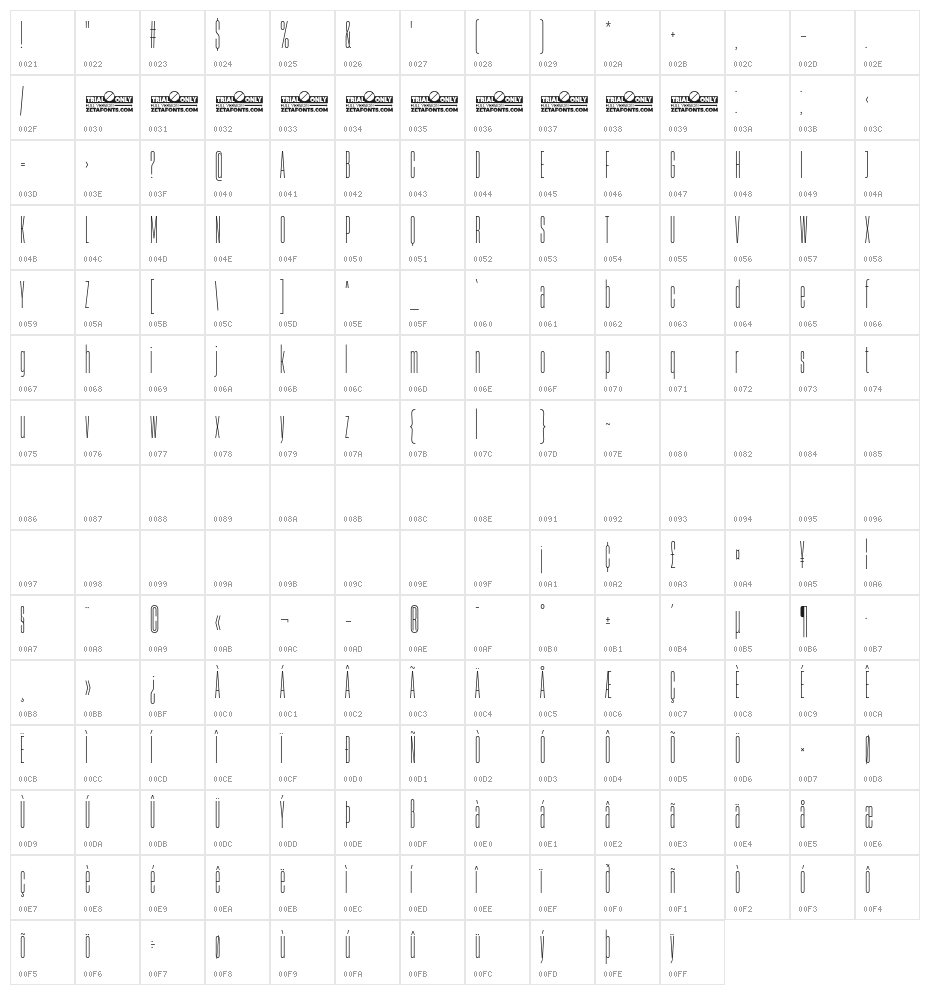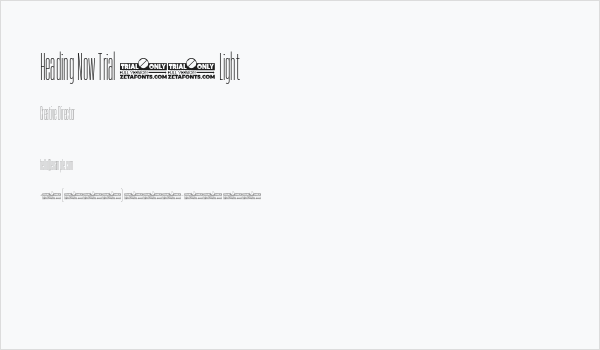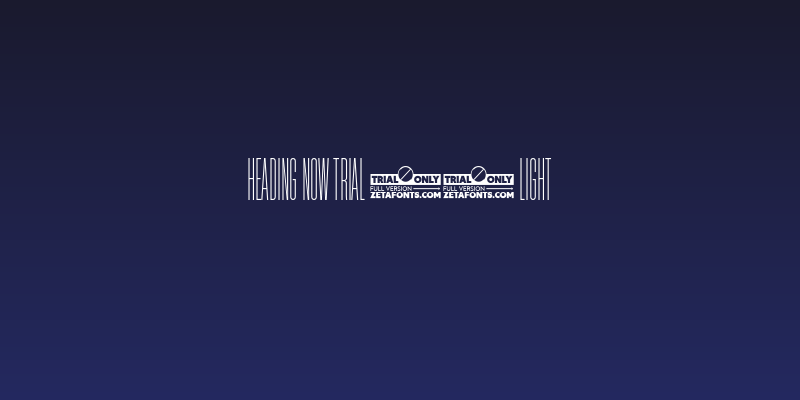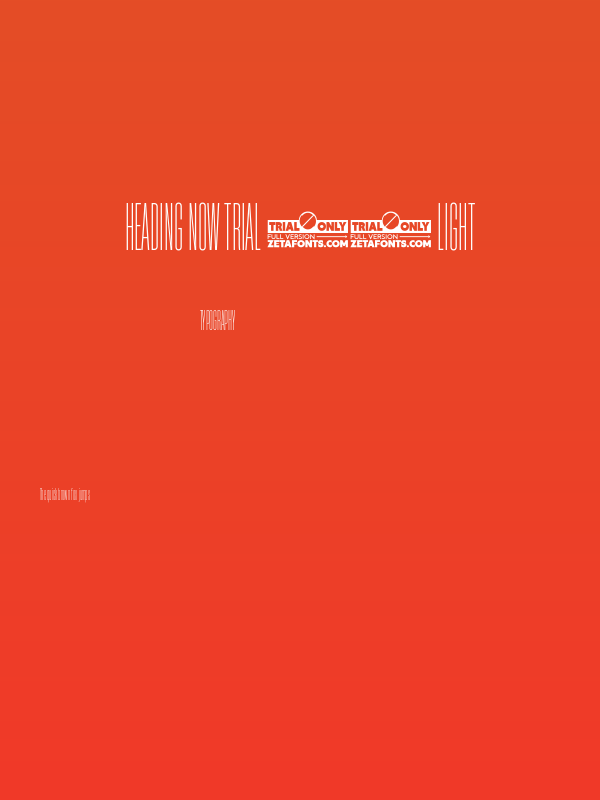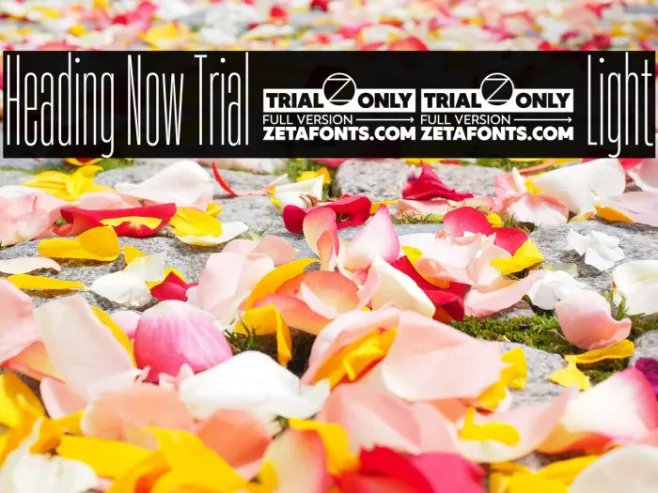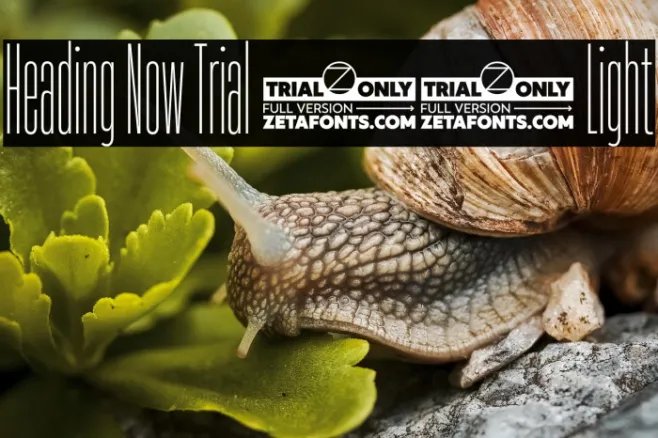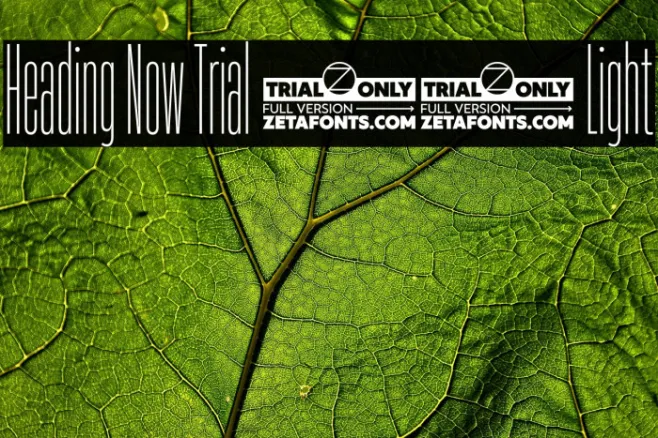
Heading Now Trial 02 Light Font
Heading Now Trial 02 Light Description
This font features a tall, narrow design with a distinctly modern and sleek appearance. The characters are elongated with a consistent thin stroke width, giving it an elegant and sophisticated look. The uppercase and lowercase letters maintain a uniform height, contributing to its streamlined aesthetic. The numerals and special characters follow the same design principles, ensuring a cohesive visual style. This font's minimalistic approach makes it suitable for contemporary design projects where clarity and style are paramount.
| Proposed Projects | Ideal for fashion magazines, luxury branding, minimalist posters, and modern website headers. |